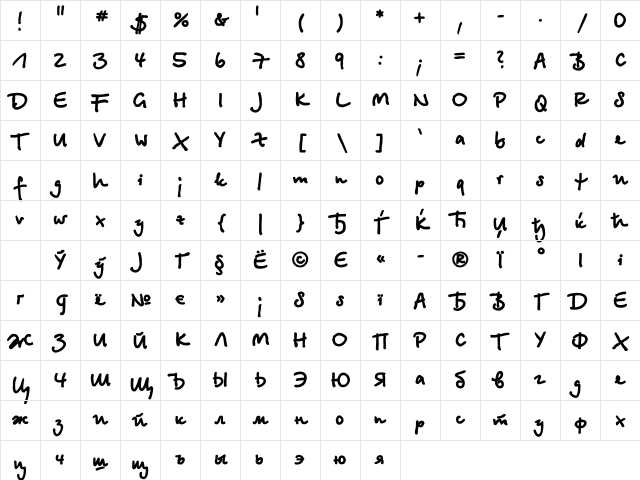
BetinaScriptExtraCTT Regular
Design Context for BetinaScriptExtraCTT
BetinaScriptExtraCTT flows with the natural rhythm of handwritten lettering, making it ideal for designs that call for warmth and personal expression.
Font Pairing: Combine BetinaScriptExtraCTT with a simple geometric sans for maximum contrast - the tension between flowing curves and clean structure is a classic typographic pairing.
Pro Tip: Use BetinaScriptExtraCTT for short runs of text - names, titles, or taglines. Extended body copy in script faces tires the eye quickly.